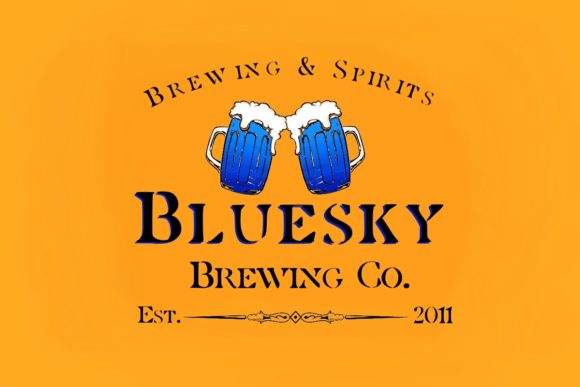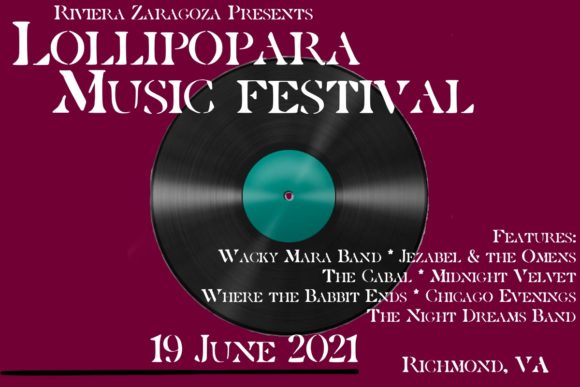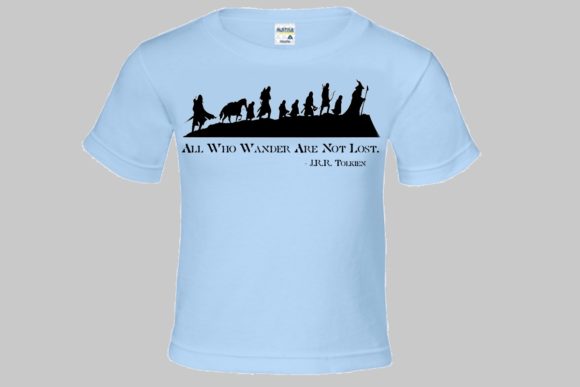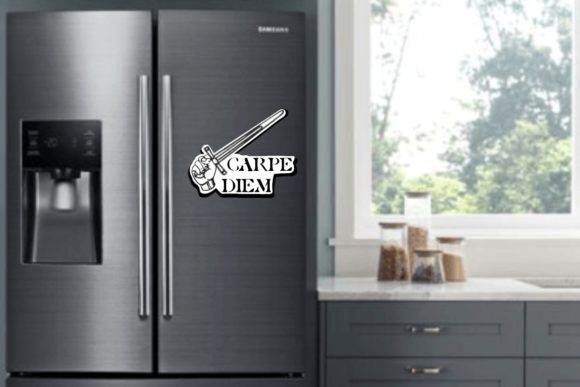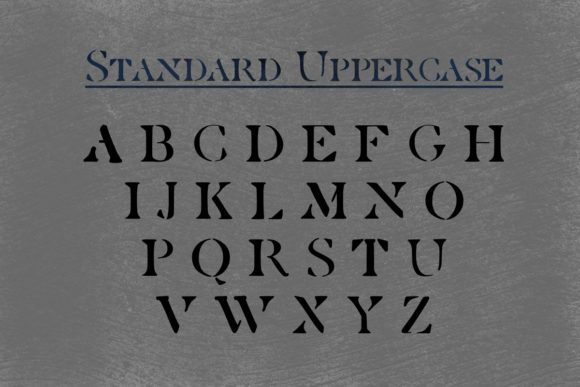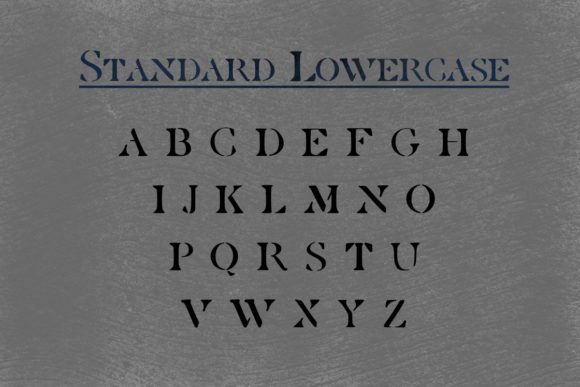
Introduction to Rise Bold Font Font
Fonts play a crucial role in design, and the Rise Bold Font font is a typeface that brings both character and versatility to any project. Whether you’re working on a branding project, a website, or a print design, the Rise Bold Font font offers a unique style that can elevate your work.
Rise Bold is a minimal yet elegant serif font.
Its neat and simple characters make this font incredibly versatile, fitting a wide pool of contexts .
Key Features of Rise Bold Font Font
Why Choose Rise Bold Font Font?
The Rise Bold Font font is more than just a typeface – it’s a design tool that helps you communicate your message with style and clarity. Its unique character set and versatile design make it suitable for a wide range of applications, from elegant invitations to bold headlines.
With its carefully crafted letterforms and balanced proportions, the Rise Bold Font font ensures readability and visual appeal across all mediums.
What makes Rise Bold Font font special?
The Rise Bold Font font stands out with its unique design, exceptional readability, and versatility across various design applications.